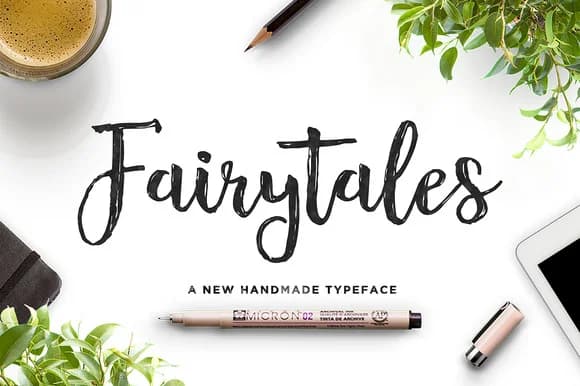
About Fairytales Script Font
Fairytales Script Font by Dhan Studio is an elegant flowing script that captures the timeless romance of hand-lettered narratives. With graceful curves and organic letterforms that authentically mimic natural handwriting, this typeface brings genuine narrative warmth and visual character to every page it adorns. The refined letterforms strike a beautiful balance between sophistication and whimsy, making it ideal for creative work that refuses to settle for ordinary.
From romantic wedding invitation suites to whimsical children's book covers, this script typeface unlocks design potential across numerous creative applications. Its refined yet playful character makes it particularly well-suited for boutique cosmetics labels, literary quote graphics destined for social media sharing, vintage-inspired event stationery, and artisanal product packaging that tells its own story. The typeface performs with equal excellence in editorial layouts, custom greeting card designs, and small business branding seeking a truly distinctive visual voice.
- Elegant, Flowing, Fairytales Script
Fairytales Script Font is a script font that shines as a display or heading face. Pair it with a clean sans-serif or serif font for body text β the contrast creates a clear hierarchy while the two styles stay balanced and easy to read.
Fairytales Script Font
by Dhan Studio